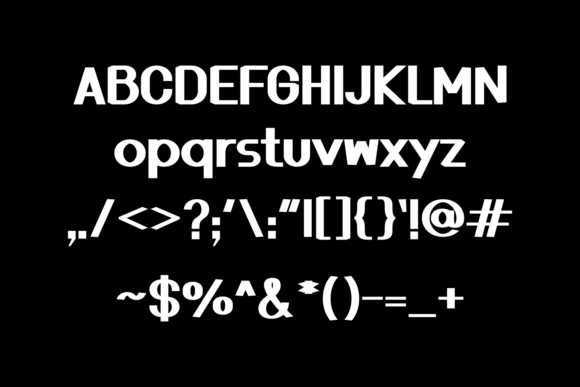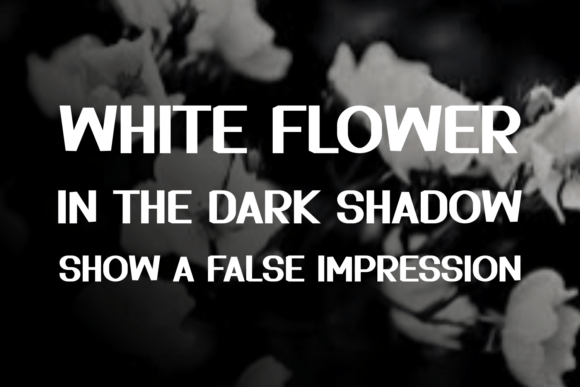
Discover the Timeless Charm of Basmeru Font
Have you ever been stuck in a design rut, staring at a blank canvas, desperate for inspiration to strike? For designers, those moments can be a nightmare. But what if I told you that there’s a font that can transport you to a world of creative bliss? Enter the enchanting Basmeru Font, a cool and unique sans serif font that’s about to become your new best friend.
Basmeru Font is more than just a typography choice – it’s a statement piece that can elevate your designs to new heights. Its distinct and timeless style is perfect for creating spectacular designs that leave a lasting impression. Whether you’re working on a logo, brochure, or website, Basmeru Font is sure to bring your vision to life in a way that’s both stylish and memorable.
Basmeru Font Key Features
- Font Family: Basmeru is a sans-serif font family, offering a unique blend of modern and traditional design elements.
- Character Set: Basmeru supports a wide range of languages, including Latin, Cyrillic, and Greek scripts, with over 1,000 glyphs.
- Size: The font family includes a range of weights, from Light to Black, with corresponding italic and bold styles, allowing for flexible typographic expression.
- Unique Characteristics: Basmeru’s distinctive design features include geometric shapes, rounded edges, and a unique x-height, making it an ideal choice for modern branding and design projects.
Basmeru Font Review
Overall, I’m quite impressed with Basmeru Font. It’s a unique and elegant font that adds a touch of sophistication to any design project. ✨
- Basmeru Font is highly legible, making it perfect for body text and longer pieces of content.
- The font’s elegant lines and curves give it a luxurious feel, ideal for high-end brands and designs.
- It’s highly versatile and can be used in a variety of contexts, from corporate identities to creative projects.
While Basmeru Font is an excellent choice for many projects, there are some limitations to consider:
- ⚠️ The font may be too ornate for some projects, potentially overwhelming the design.
- ⚠️ Basmeru Font doesn’t include a wide range of weights, which may limit its use in certain situations.
Basmeru Font is a high-quality, elegant font that’s perfect for adding a touch of luxury to your designs. While it may not be the best choice for every project, it’s definitely worth considering for high-end or creative projects where you want to make a statement.
Basmeru Font is commonly used for:
- Graphic design projects (e.g., logos, business cards, etc.).
- Presentations and reports (e.g., PowerPoint, Word, etc.).